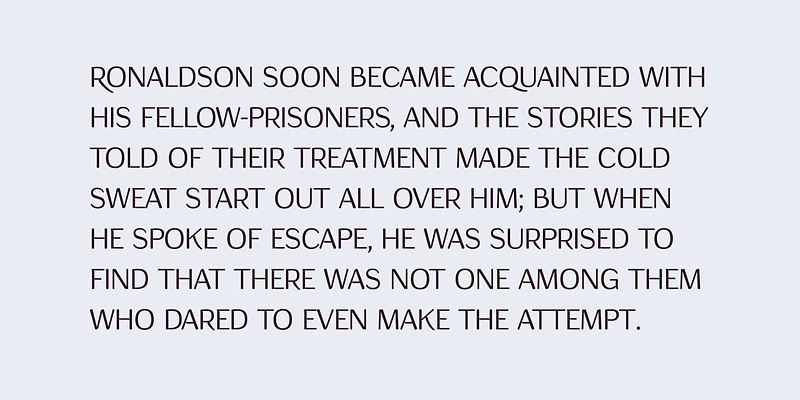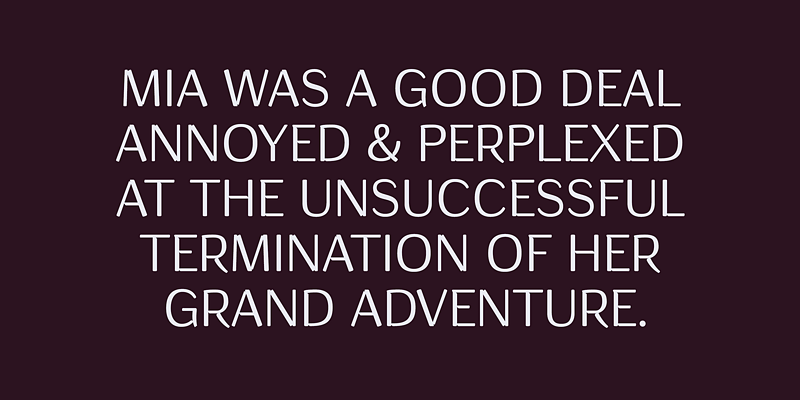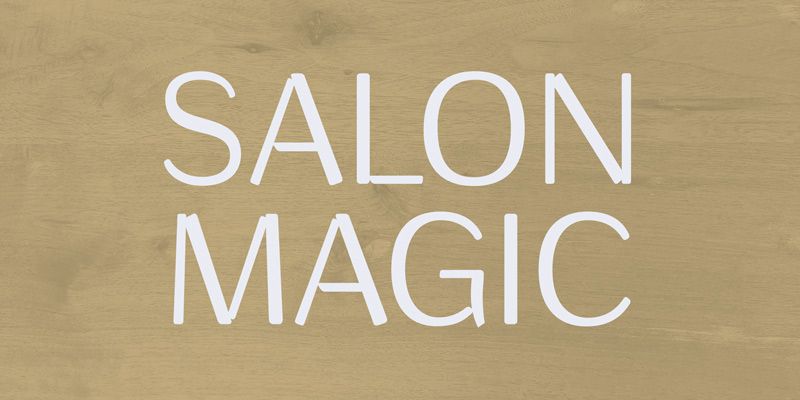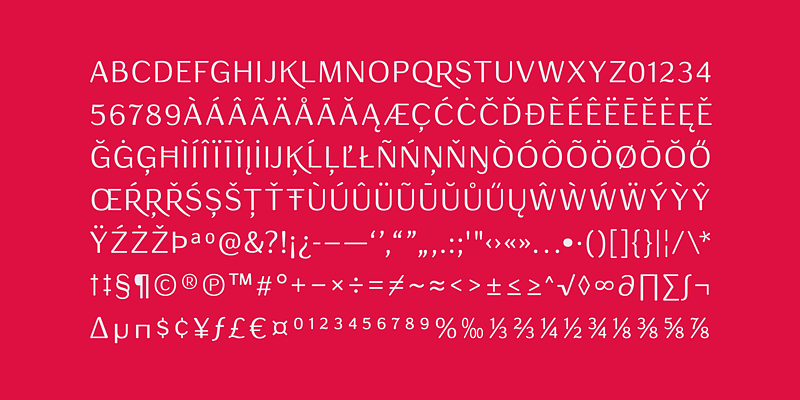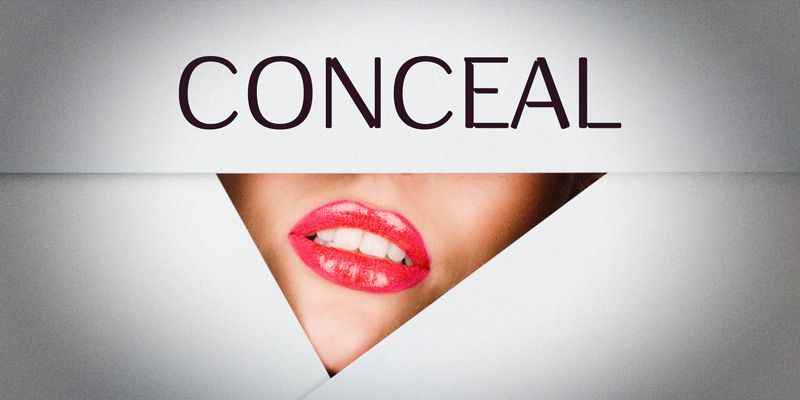
Conceal pairs a humanist structure with subtly artificial details. Tapered strokes and small indentations at the joins make the forms feel refined, biological, and faintly engineered at the same time. It is well suited to beauty products that speak about research without looking like laboratory equipment: regenerative skincare, peptide treatments, hair and scalp care, aesthetic devices, and ingredient platforms. Use it for serum names, treatment ranges, launch graphics, or retail display headings, where the lettering can suggest both the body and the technology applied to it. Conceal also gives cosmetic dermatology and wellness identities a distinctive display voice. It can make a treatment name feel precise and sensuous at once.